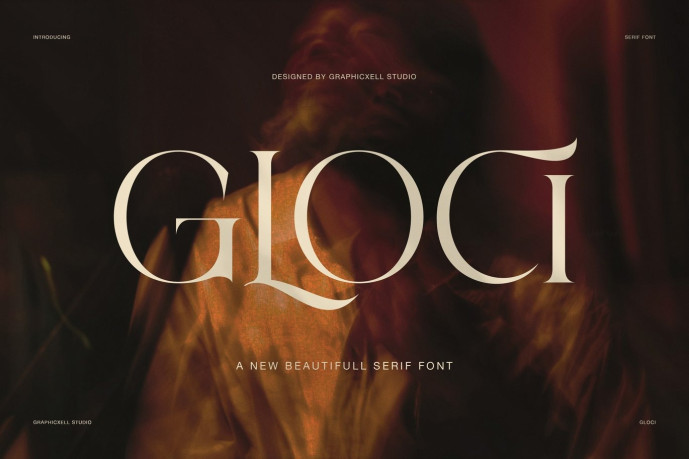
Gloci Font
Designer: Graphicxell
Gloci Font is a refined display serif designed for elegant branding, stylish editorials, and modern visual identity work. Its letterforms are slender, polished, and balanced, while also conveying a soft, theatrical feel. As a result, Gloci looks graceful at first glance, while its alternate characters and ligatures add a more distinctive voice. The result is an elegant, artistic, and highly usable serif typeface.
This typeface has a strong avant-garde character. The tall proportions, soft curves, and precise serif details create a clean and refined impression. At the same time, the alternate characters introduce a personalized look that gives titles, logos, and names a more individual touch. Therefore, Gloci is ideal for designers who are looking for something elegant but not simplistic. It offers beauty, control, and style all in one package.
Gloci works particularly well in the luxury brand sector. For example, it’s suitable for fashion brands, beauty product packaging, hotel branding, restaurant menus, floral concepts, jewelry logos, and boutique product design. Furthermore, it works perfectly in magazine headlines, social media graphics, website headers, and invitation layouts. Because the typeface is both clean and elegant, it can support a wide range of visual styles without losing its distinctive identity.
Another strength of Gloci is its impact on display. Large text is striking, polished, and memorable. Meanwhile, ligatures allow for more fluid word forms, which helps refine compositions. Similarly, alternative fonts add movement and charm, which can make simple layouts more distinctive. Therefore, the typeface is very useful for branding systems that require both consistency and visual appeal.